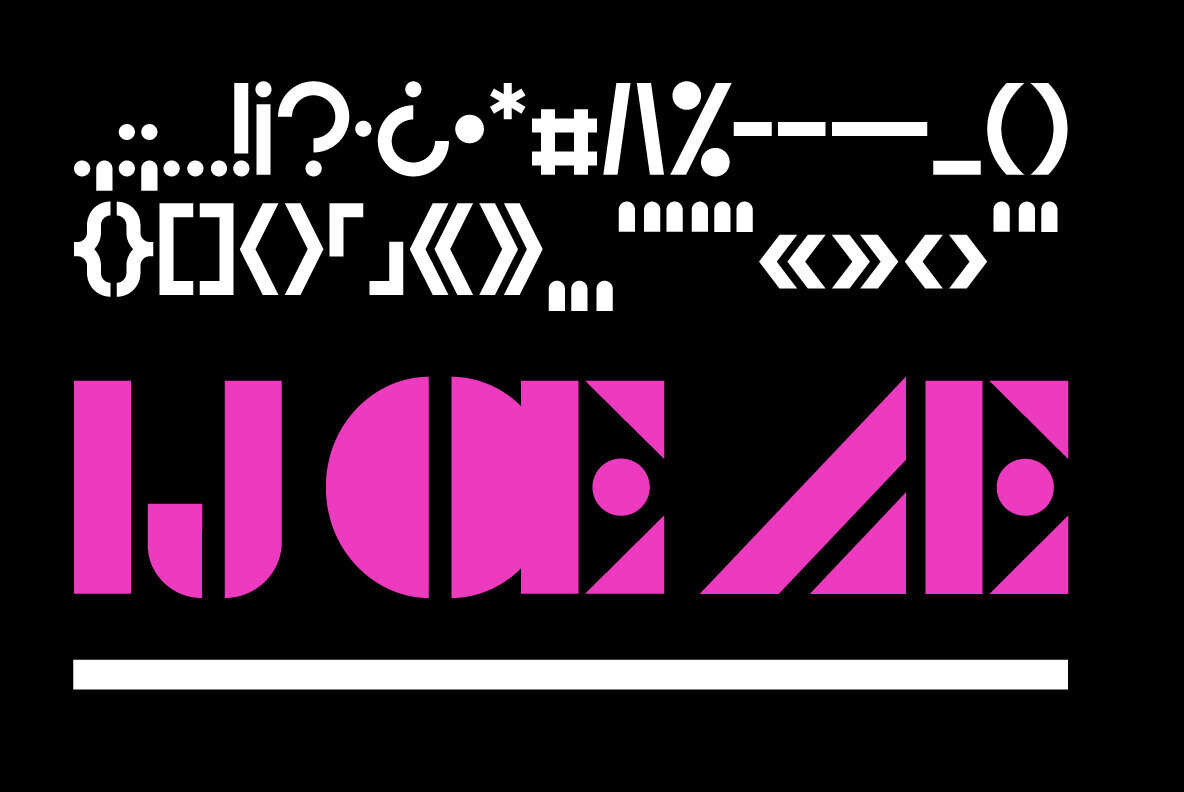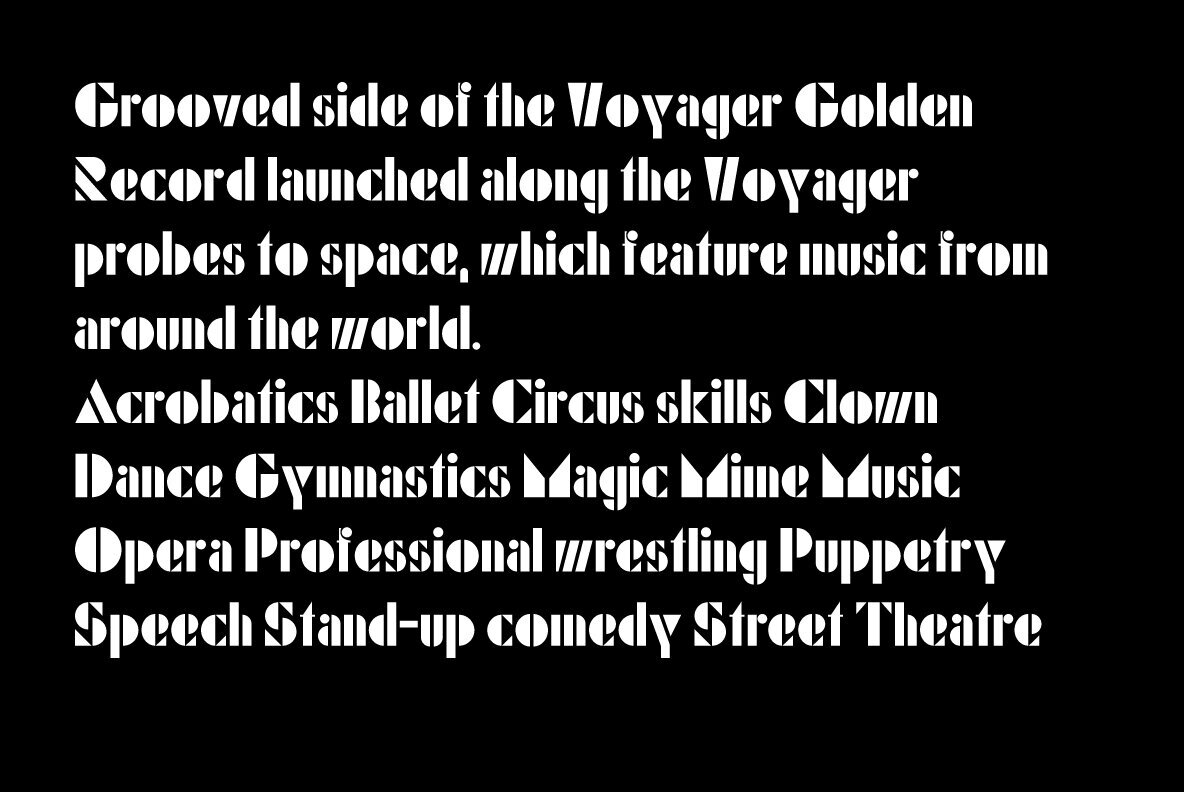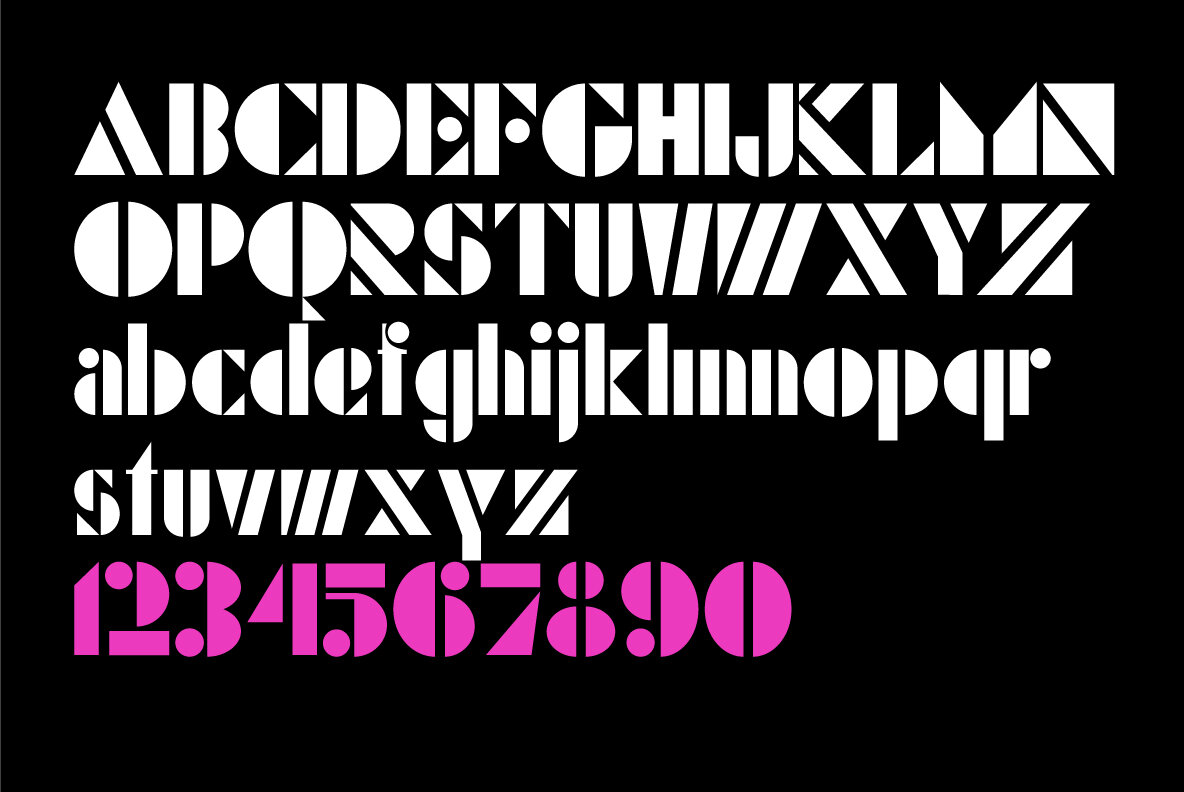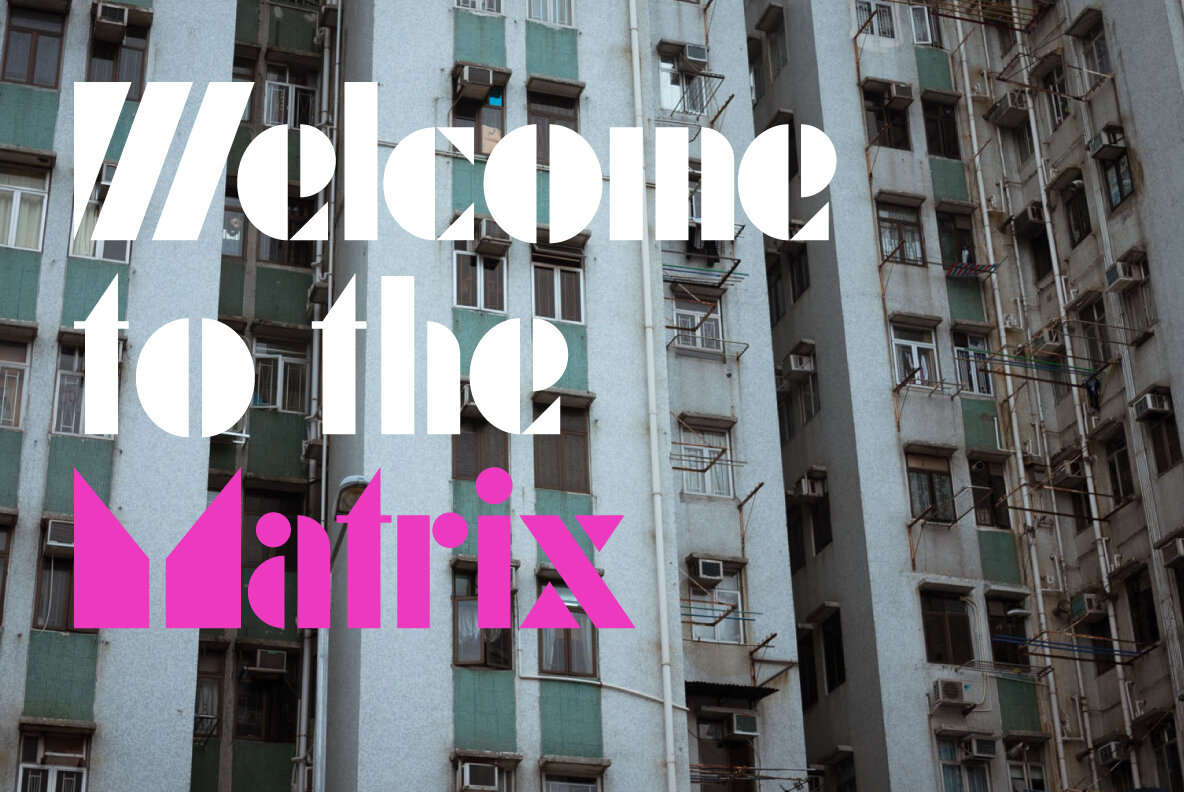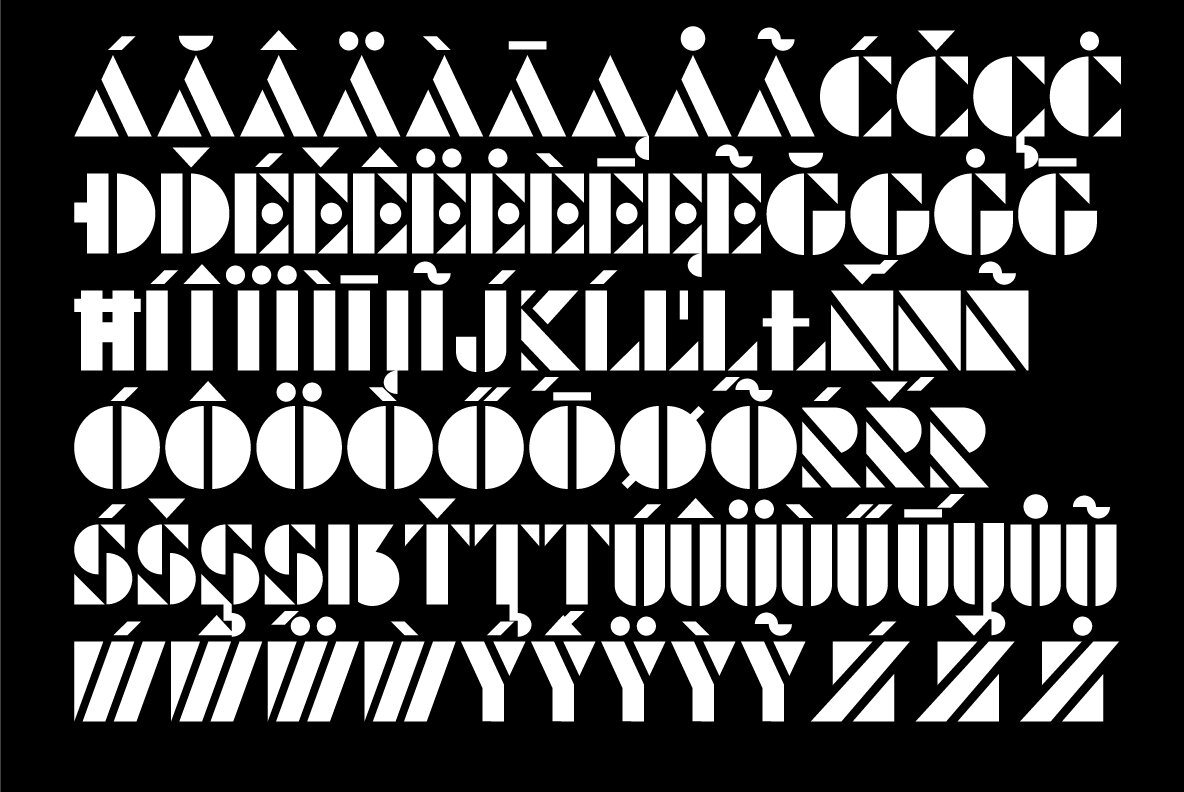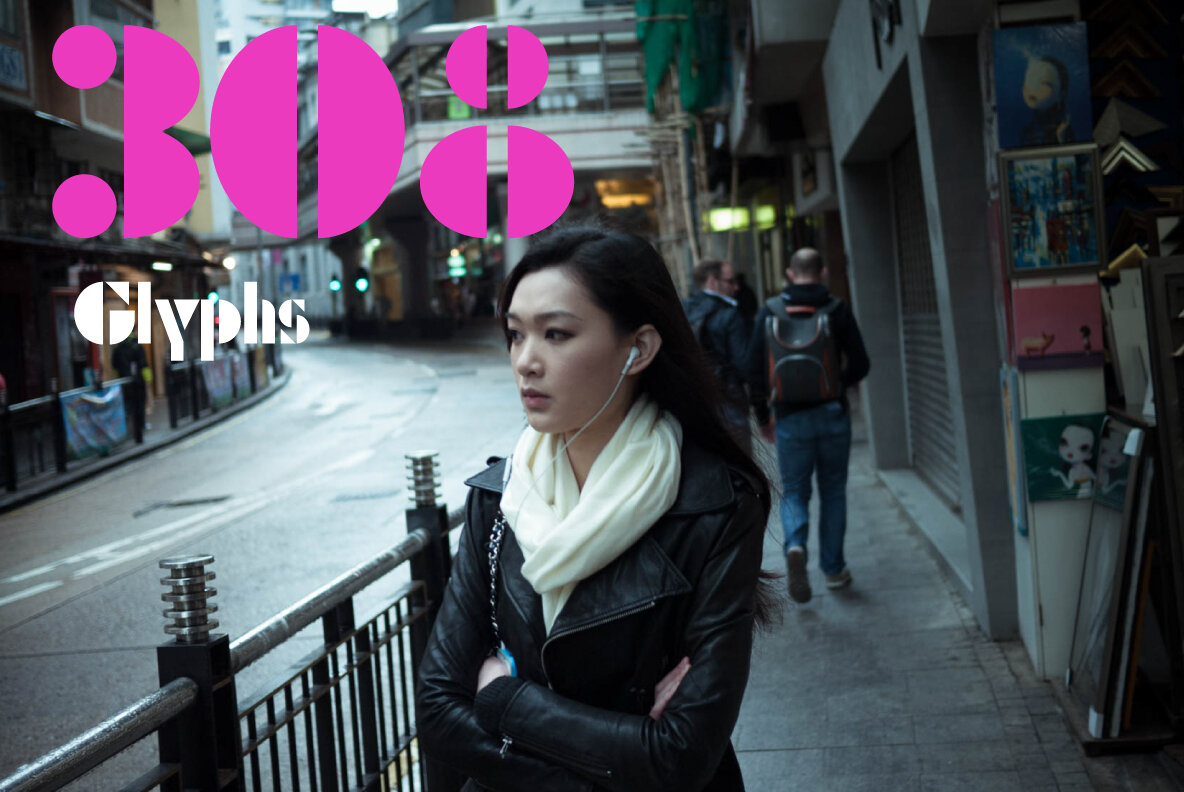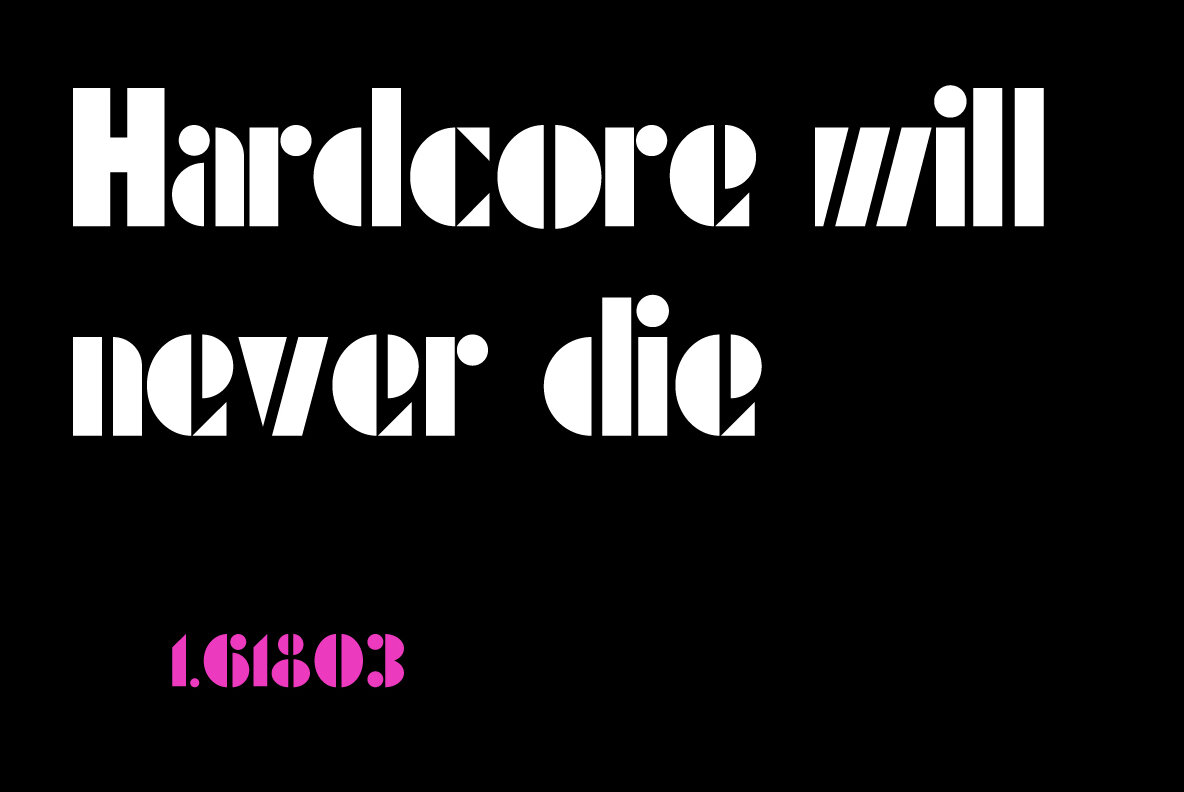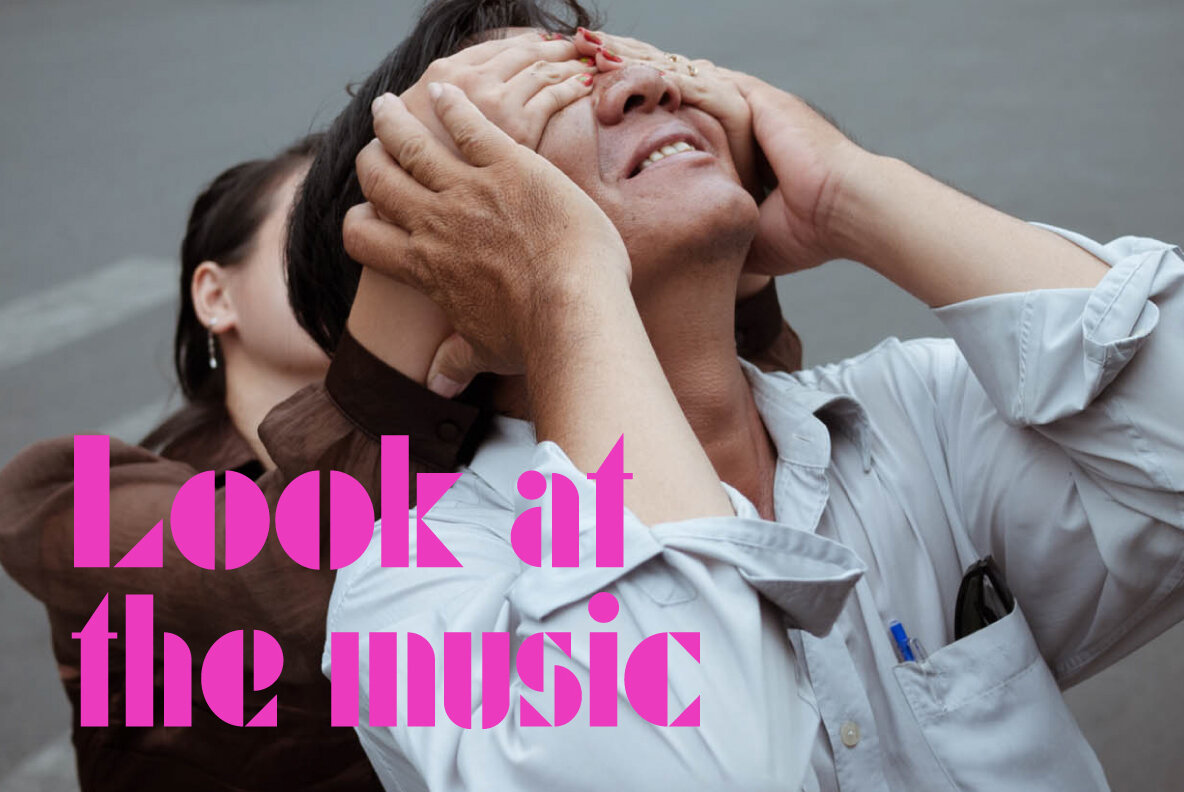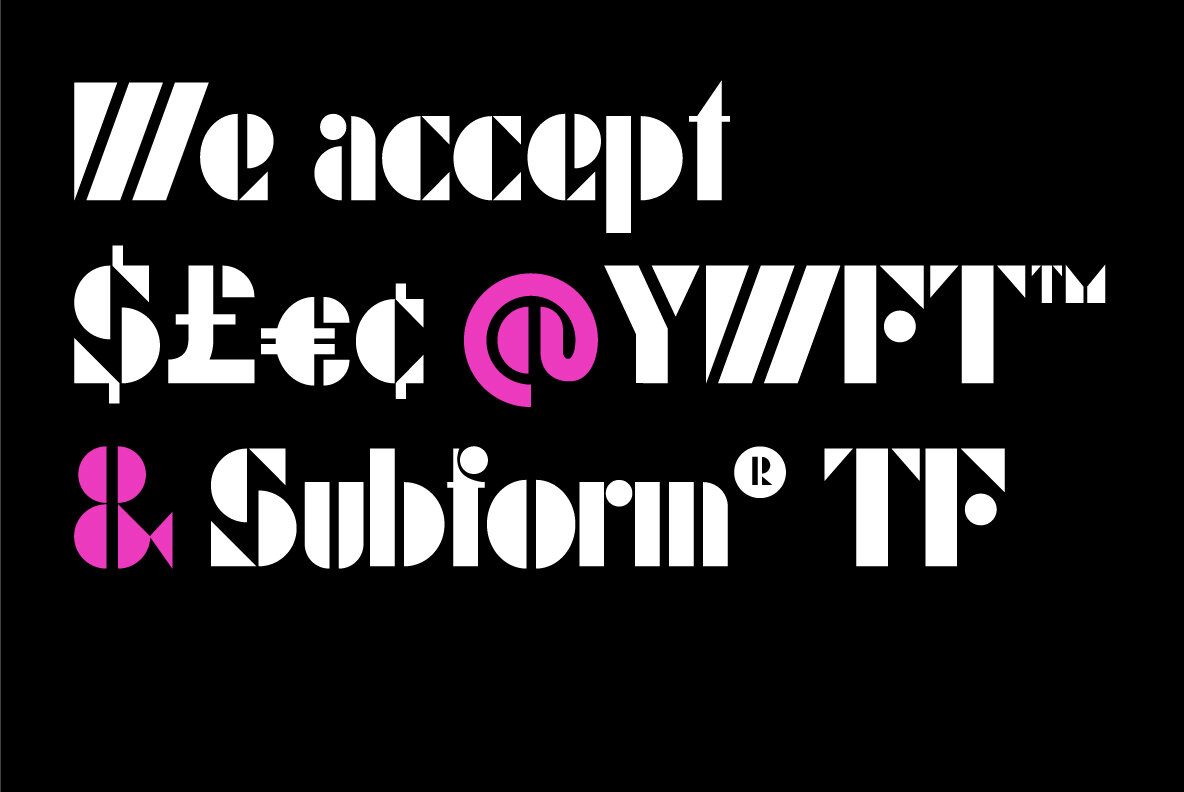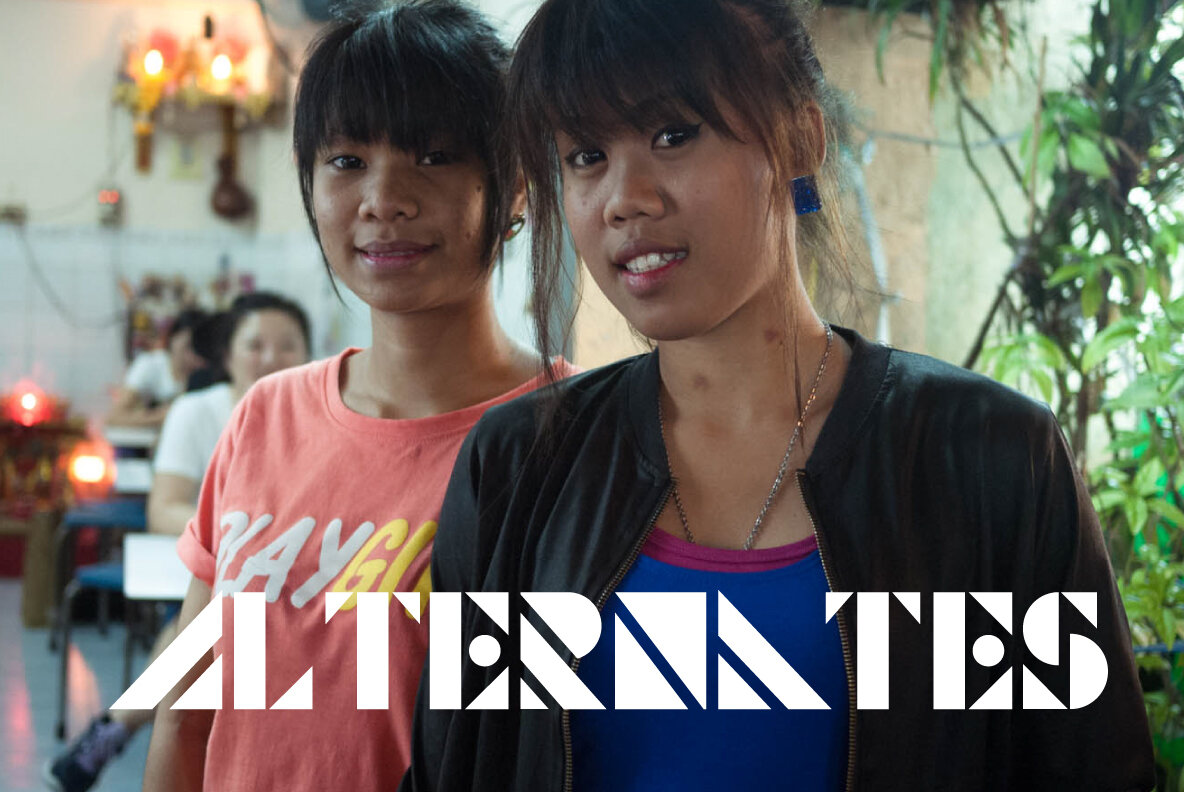
Fino Complete Font
Fino Complete
Introducing Fino Complete, the enhanced iteration of Fino Black (initially unveiled as a complimentary font in 2021). Retaining its distinctive style, Fino Complete boasts altered letter proportions, an exhaustive character set, comprehensive punctuation, and expanded language support. Project photography courtesy of Vlad Poparlan.